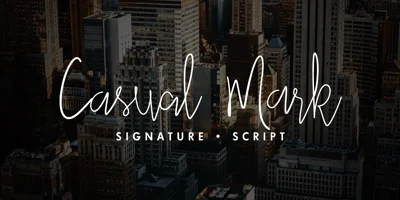
Casual Mark Script
Casual Mark Script Font
Casual Mark Script Font offers designers a relaxed typeface that embodies effortless elegance and handwritten authenticity with approachable charm. However, for commercial use, you must purchase this font. You can download it for free for testing purposes only.
Casual Mark Script Font excels in friendly design applications including neighborhood café branding, personal blog graphics, casual wedding invitations, handcrafted product labels, local business signage, informal event materials, creative workshop promotions, artisan market displays, friendly restaurant menus, and approachable lifestyle campaigns. This personable typeface brings genuine handwritten warmth to casual design projects.
What makes Casual Mark Script Font truly exciting is its perfect simulation of natural marker writing with relaxed letterforms that create instant connection and human authenticity through informal elegance. The font features flowing characters with casual rhythm and friendly imperfections that convey approachability, creativity, and genuine personality. Its casual sophistication and handwritten appeal make it ideal for brands seeking personal connection, artisanal quality, and audiences who value authentic communication, creative expression, and the warm familiarity of handwritten messages that feel personal and genuine.
The Casual Mark Script Font family typically includes Regular weight with natural variations and connecting ligatures that enhance its handwritten character. These casual options provide designers with complete marker styling while maintaining the font's distinctive relaxed elegance and friendly presentation across various personal applications and informal contexts.
Whether you're developing local business branding, creating personal communication materials, or designing casual lifestyle campaigns, Casual Mark Script Font delivers the handwritten authenticity and casual sophistication that approachable projects require. Its exceptional friendliness and genuine appeal make it invaluable for designers working with small businesses, creative services, and personal brands requiring typography that celebrates human connection, creative spontaneity, and the timeless appeal of handwritten communication that builds trust, warmth, and meaningful relationships with audiences who appreciate authentic, personal touches in their everyday interactions.